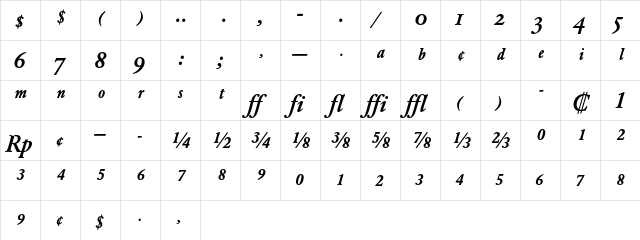
Garamond BE Medium Italic Expert
Design Context for Garamond BE Typeface
Garamond BE takes a measured approach to typography — its balanced proportions and neutral character make it a reliable workhorse for both digital and print work. The slanted form adds forward momentum and visual energy.
Pro Tip: Try Garamond BE for annotation and caption copy alongside an upright companion — the contrast in angle creates a dynamic but ordered typographic system.